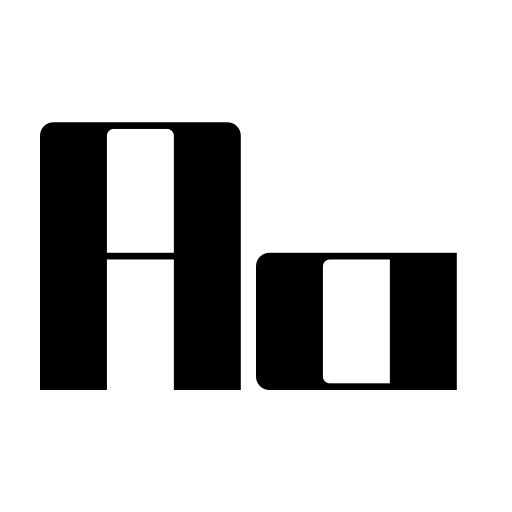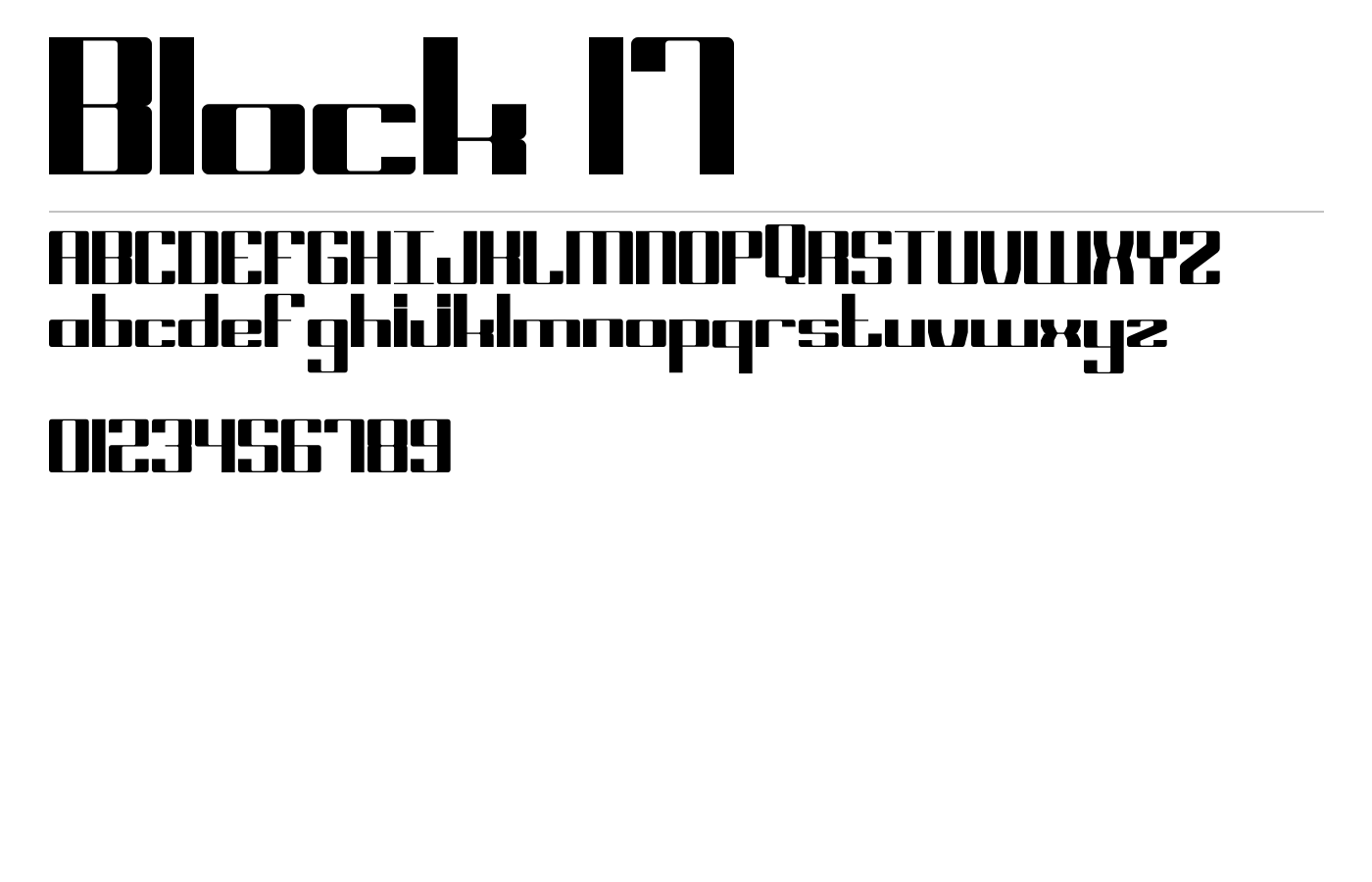
Block 17 is a bold, condensed sans serif font with a striking geometric and modular design, characterized by its heavy weight and tight letter spacing. Its blocky, industrial shapes give it a modern and assertive feel, making it ideal for impactful headlines, logos, and urban-style branding. This typeface works best where a strong visual presence is needed to convey confidence and contemporary style.
Block 17 Font